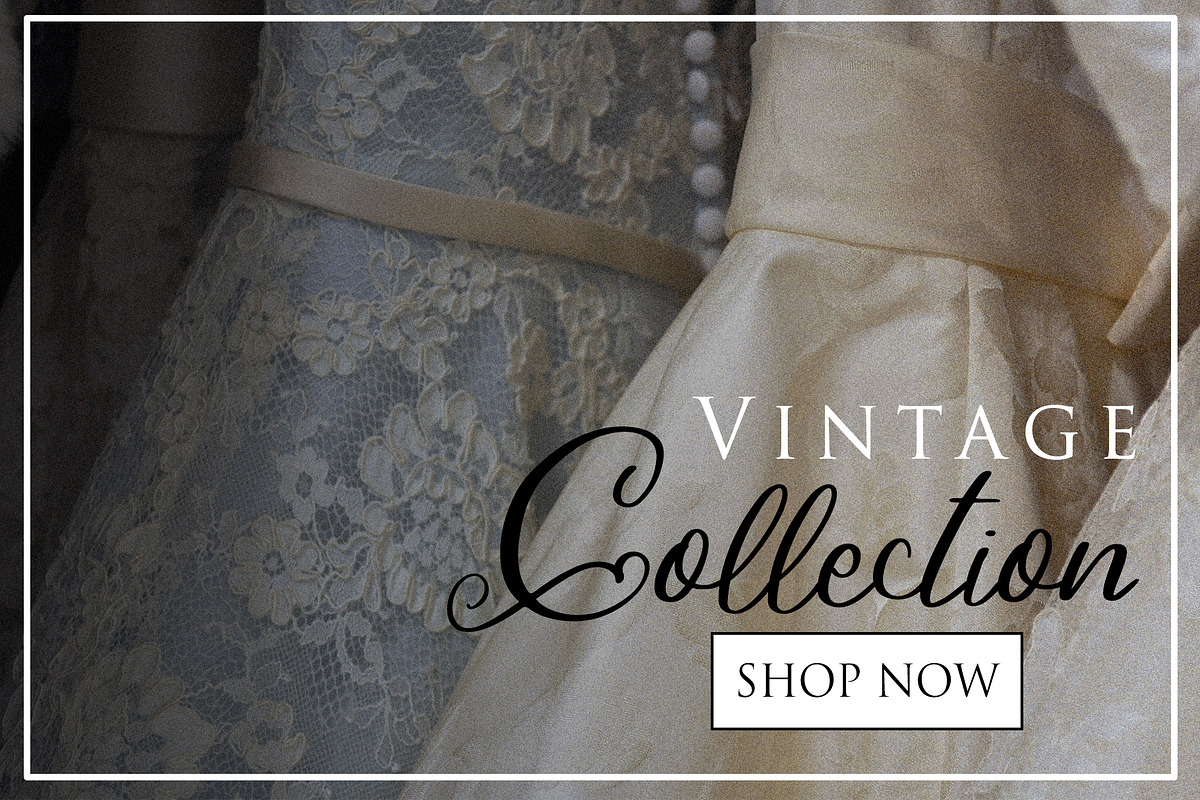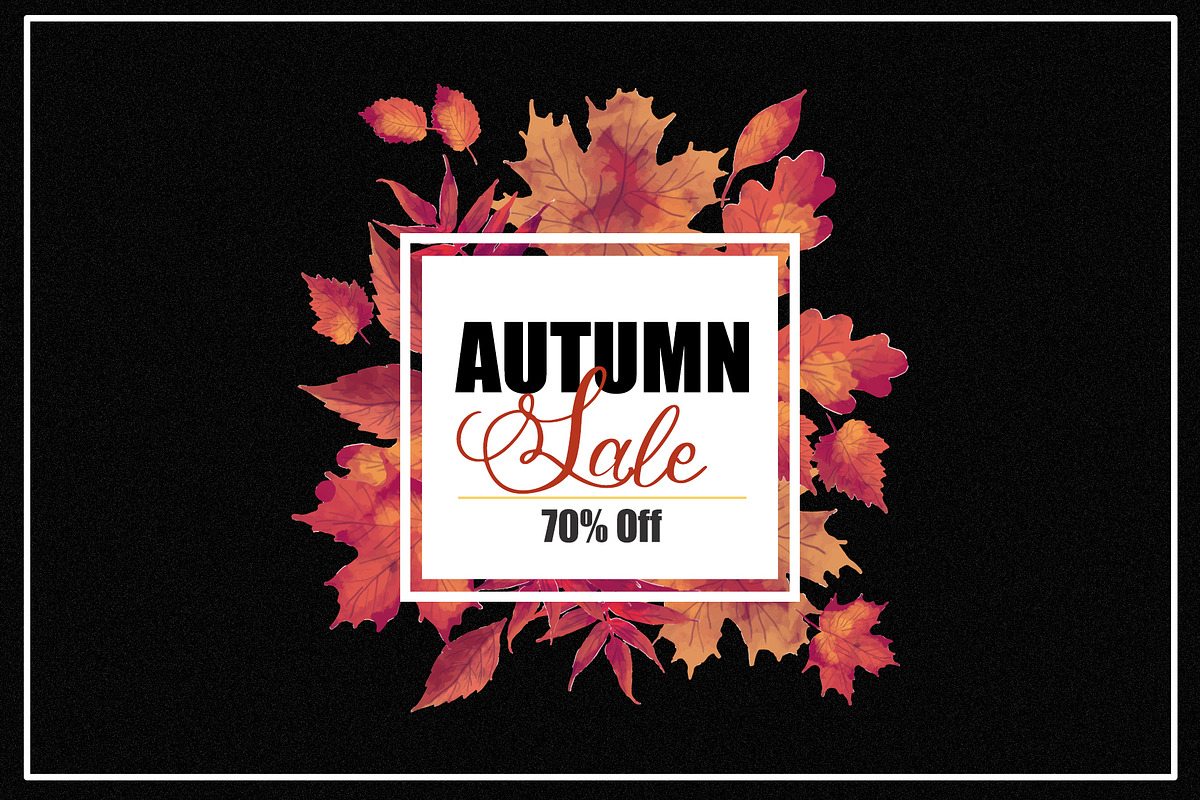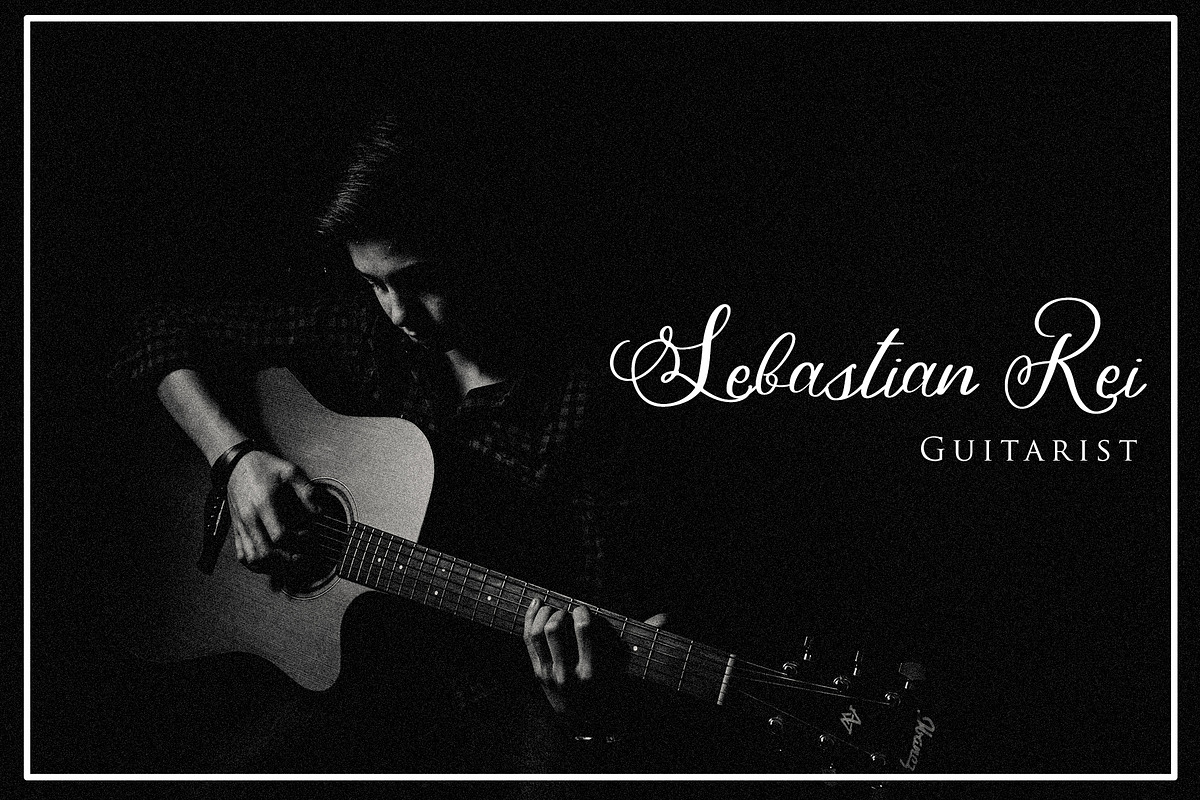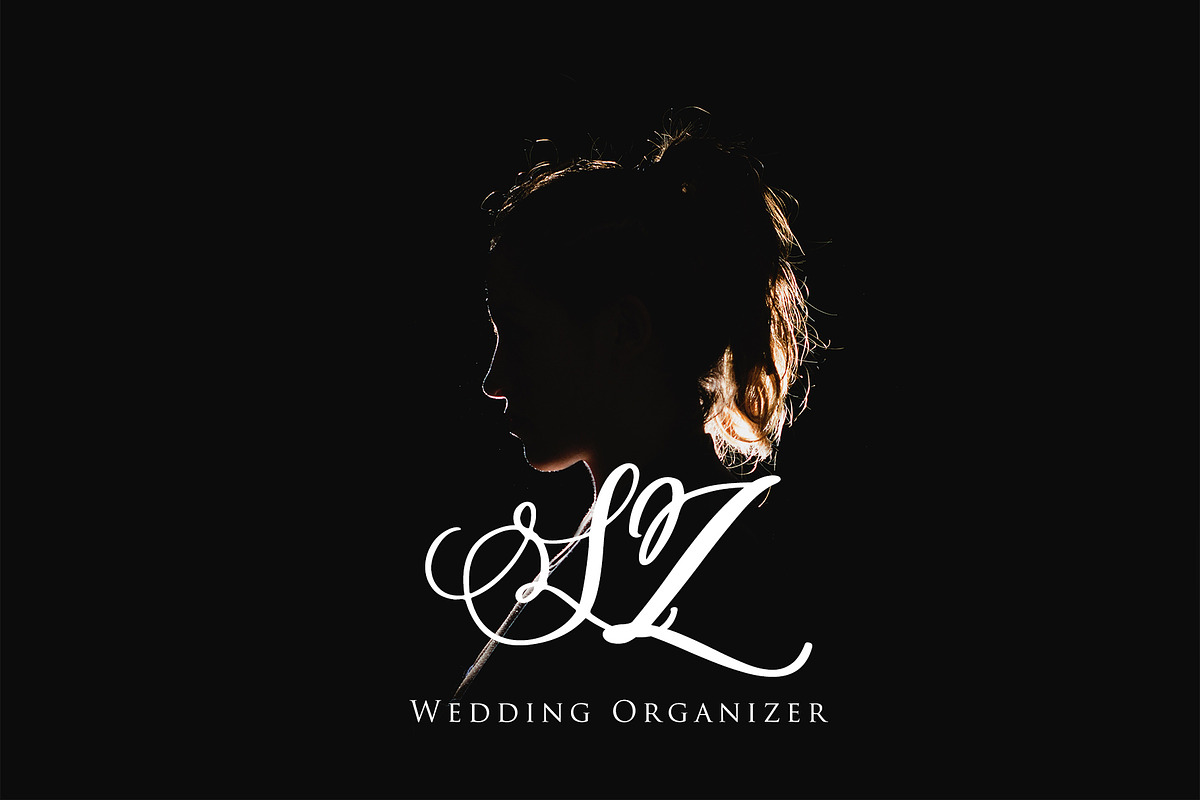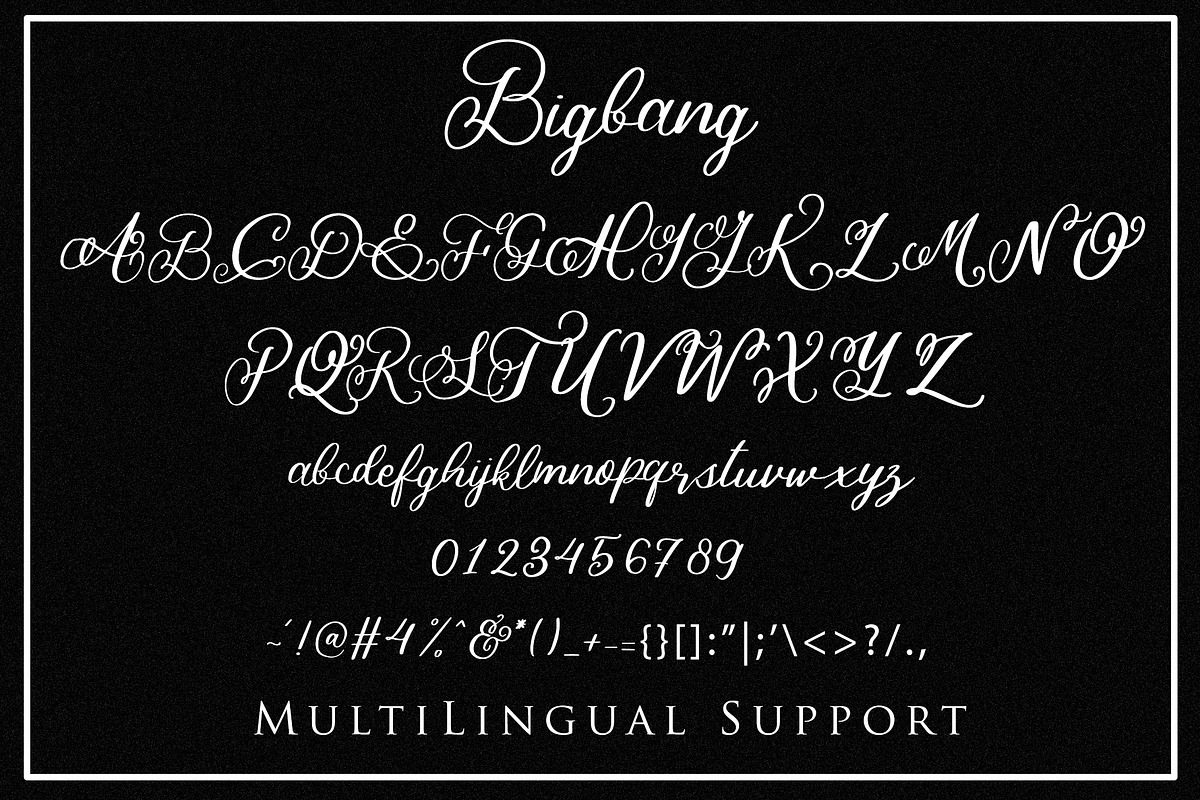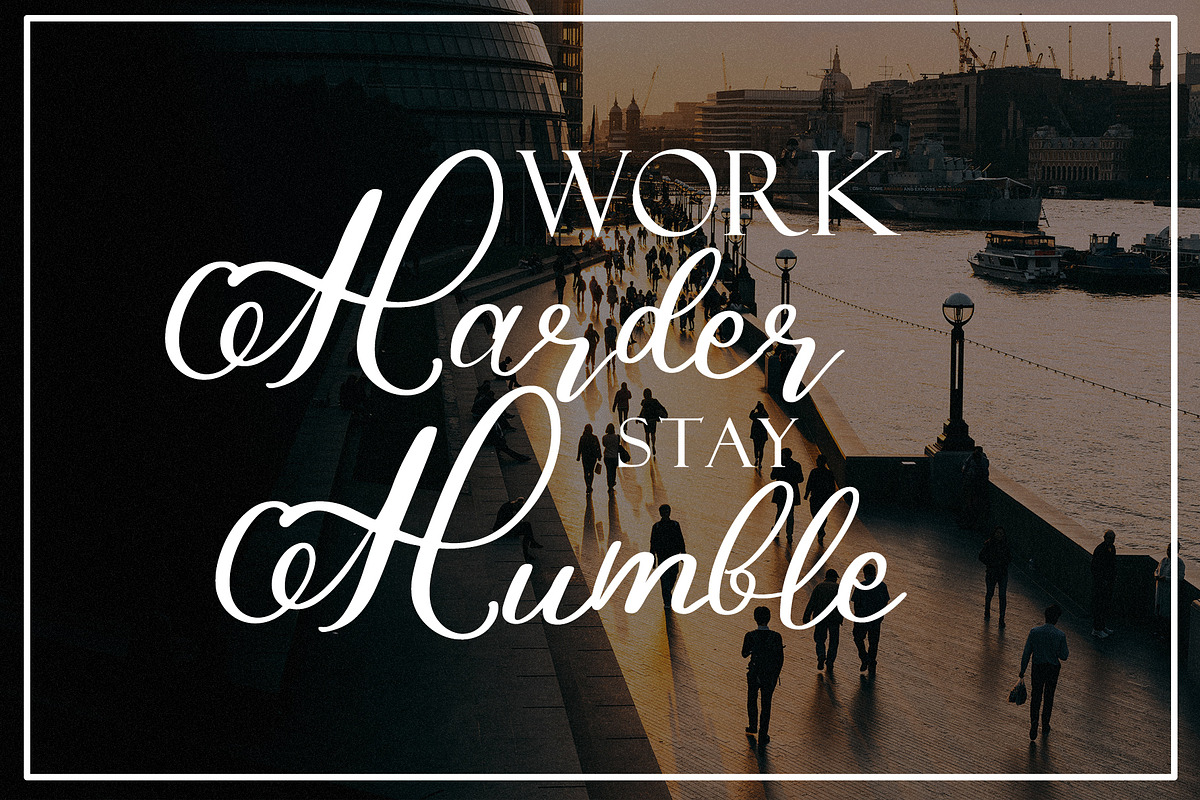
Bigbang Handwritten Font
Introducing, BigBang Handwritten font It's a modern and natural script font inspired by vintage style of handwritting. It's unique, quirky yet still classy. Great choice for card, invitation, website, quote, promotion, monogram logo and much more.
Including UPPERCASE, lowercase, numeric and symbols
Bigbang Handwritten Font by Dm Studio fits naturally into Branding, posters, packaging, typography.